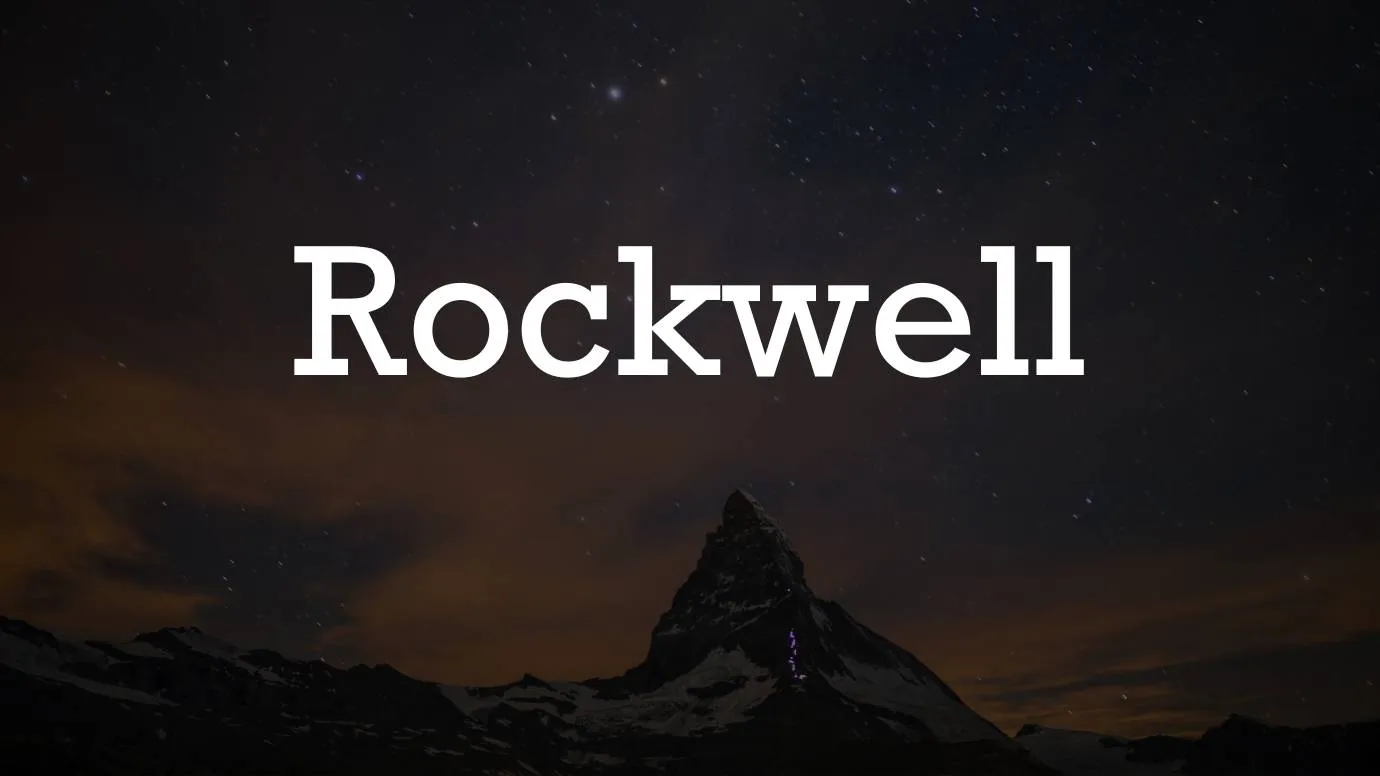
Rockwell Font
About This Font
Rockwell changed into designed by Frank Hinman Pierpont in 1934 and become first time published by Monotype. That is a design that is both robust and adaptable. This font have 15 styles. This family is terrific for branding, headlines and different display makes use of.
The simple shapes and hearty serifs additionally make it a terrific preference for brief blocks of textual content in both print and on-screen environments.